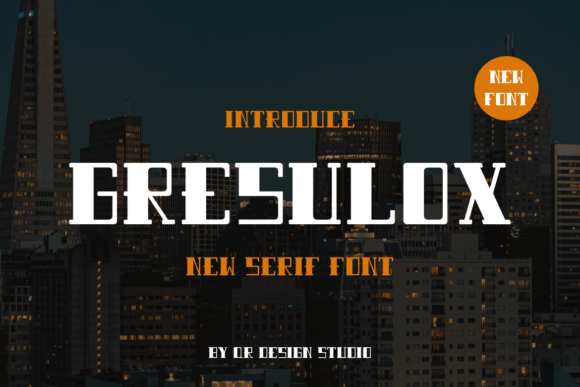
**Gresulox Font: An Impeccable Blend of Boldness and Authenticity**
In a world saturated with mediocrity, Gresulox Font emerges as a radiant beacon of originality, beckoning you to embrace its captivating charm. This bold and authentic display font, crafted with meticulous precision by qrdesignstd, is a testament to the transformative power of typography.
**Unleash Your Creativity with Endless Possibilities**
With Gresulox Font at your disposal, the creative possibilities are boundless. Let your imagination soar as you craft stunning logos that command attention, design eye-catching sports apparel that ignites passion, and create countless other projects that leave an indelible mark.
**A Font That Shines in Diverse Contexts**
Gresulox Font possesses an unparalleled versatility, effortlessly adapting to a myriad of contexts. Whether you seek to craft an enchanting Christmas invitation that captures the true spirit of the season or design captivating posters that demand attention, Gresulox Font rises to the challenge, delivering exceptional results every time.
**Elevate Your Designs to New Heights with Gresulox Font**
Step into the realm of design excellence with Gresulox Font. As a serif font, it exudes an air of sophistication and elegance, while its bold strokes infuse your creations with a sense of power and confidence. Gresulox Font is the key to unlocking your creative potential and leaving a lasting impression on your audience.
**A Font That Resonates with Your Emotions**
Gresulox Font is more than just a collection of letters; it's an expression of your individuality, a reflection of your unique style. Its bold and authentic character evokes a sense of nostalgia, transporting you back to a time when craftsmanship and attention to detail were held in high regard.
**Experience the Gresulox Font Difference Today**
Don't settle for ordinary fonts that blend into the background. Embrace the bold and authentic beauty of Gresulox Font and watch as your designs transform into captivating masterpieces.
**Join the Gresulox Font Revolution**
Join a growing community of designers, artists, and creative professionals who have discovered the transformative power of Gresulox Font. Step into the spotlight and let your designs shine with the brilliance of Gresulox Font.